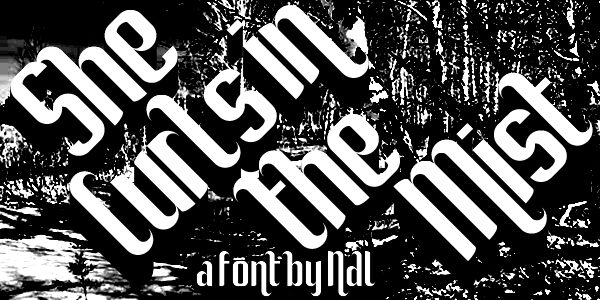
She Curls In The Mist by Andrew McCluskey is a free curly decorative display font with a Gothic edge. Extremely tall, narrow letters combine broad strokes, fine crossbars, deep hooks, and inward-curling tips in an ornate, thorny silhouette.
Dark fairy tales and theatrical mystery are its most convincing territory, particularly for book covers and stage posters. The elongated shapes could also suit album artwork, fashion branding, and Halloween event graphics, where the lettering can take on an ornamental role. Across these uses, the repeated curls and severe proportions connect romantic decoration with a faintly unsettling atmosphere.
She Curls In The Mist
Andrew McCluskey